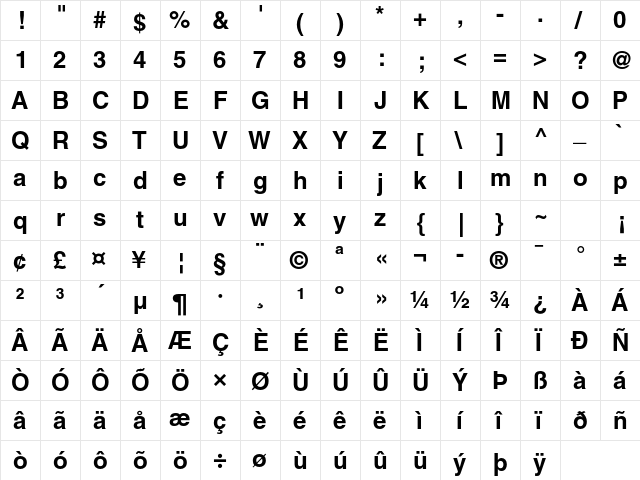
Helvetica LT Std Bold
| Designer | Max Miedinger |
Design Context for Helvetica LT Std Typeface
Helvetica LT Std takes a measured approach to typography — its balanced proportions and neutral character make it a reliable workhorse for both digital and print work. The heavy weight commands attention and anchors typographic hierarchies.
Originally released in 1987, this typeface is available in OpenType (OTF) format.